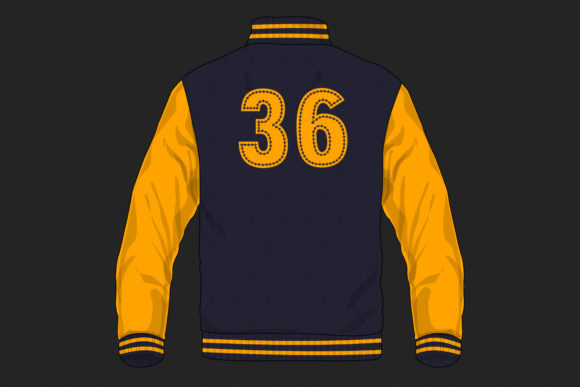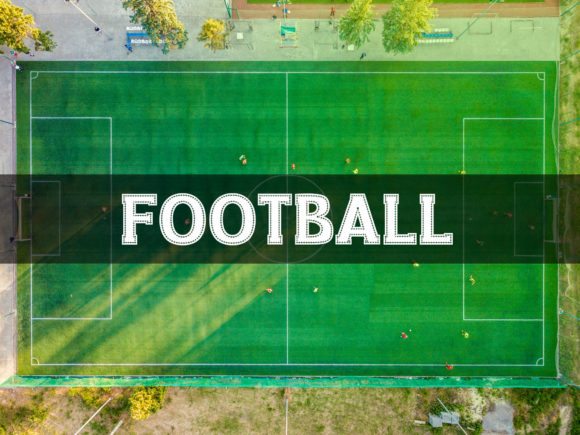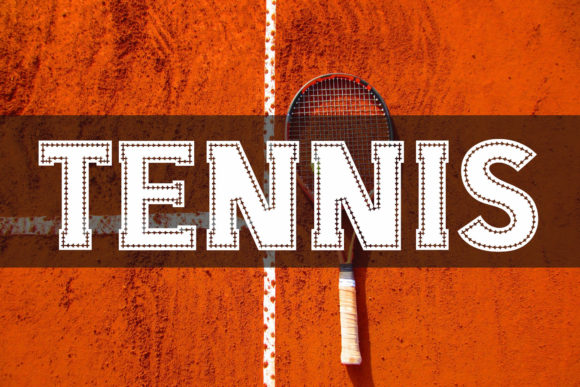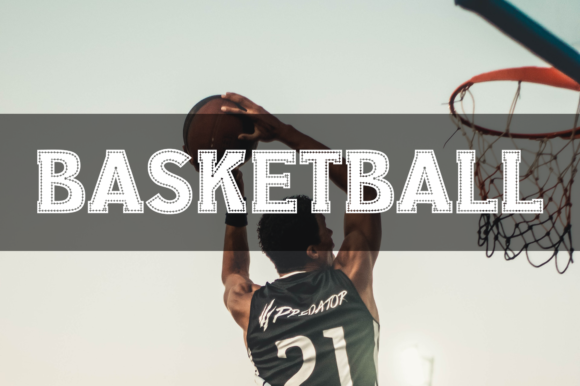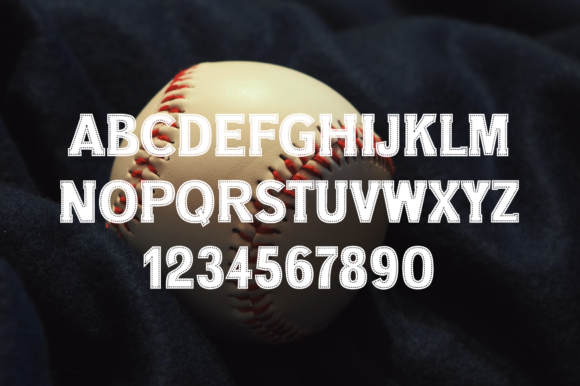
Introducing College Stitched Font: The Ultimate Sporty Display Font
Are you a designer or crafter looking for a font that can add a touch of sportsmanship and style to your projects? Look no further than College Stitched Font! This bold and proportional font is perfect for a wide range of designs and projects, from brand names and logos to number patterns and sports apparel.
What is College Stitched Font?
College Stitched Font is a sporty display font that is designed to make a statement. With its bold and proportional letters, this font is incredibly fitting for any project that requires a strong and confident look. Whether you’re designing a logo for a sports team, creating a brand identity for a fitness company, or simply looking for a font to add some personality to your craft project, College Stitched Font is the perfect choice.
Key Features of College Stitched Font
- Bold and Proportional Letters: The letters in College Stitched Font are designed to be bold and proportional, making them perfect for headlines, titles, and other applications where you want to make a statement.
- Sporty and Modern Look: The font has a sporty and modern look that is perfect for sports teams, fitness companies, and other organizations that want to convey a sense of energy and movement.
- Versatile: College Stitched Font is incredibly versatile and can be used for a wide range of projects, from logos and brand names to number patterns and sports apparel.
- Easy to Read: Despite its bold and sporty look, College Stitched Font is easy to read, making it perfect for use in a variety of applications, from signage to digital media.
Uses for College Stitched Font
College Stitched Font is a versatile font that can be used for a wide range of projects, including:
- Brand Names and Logos: Use College Stitched Font to create bold and memorable brand names and logos that will help your company stand out.
- Sports Apparel: This font is perfect for sports apparel, including jerseys, t-shirts, and other athletic wear.
- Number Patterns: Use College Stitched Font to create bold and eye-catching number patterns for sports teams, events, and other applications.
- Signage: This font is perfect for use in signage, including billboards, posters, and other large-format prints.
- Digital Media: College Stitched Font can be used in a variety of digital media, including social media graphics, video titles, and more.
Why Choose College Stitched Font?
There are many reasons to choose College Stitched Font for your next project. Here are just a few:
- Unique and Memorable: College Stitched Font is a unique and memorable font that will help your project stand out from the crowd.
- High-Quality Design: This font is designed to be high-quality and professional, making it perfect for use in a variety of applications.
College Stitched Font is a sporty display font that is perfect for designers and crafters looking for a bold and proportional font for their next project. With its bold and sporty look, this font is incredibly versatile and can be used for a wide range of applications, from brand names and logos to number patterns and sports apparel. Whether you’re a professional designer or a DIY crafter, College Stitched Font is a great choice for any project that requires a strong and confident look.